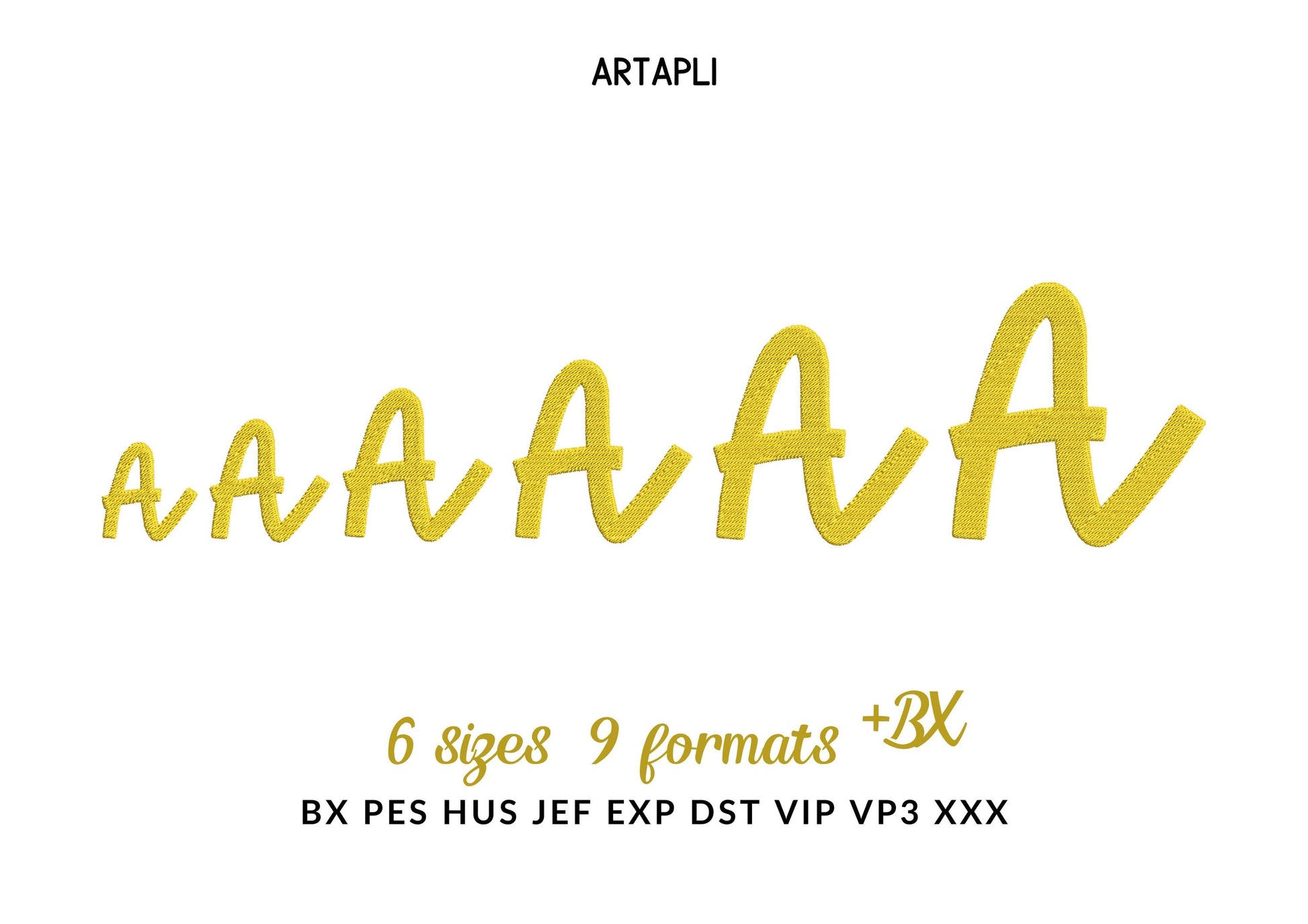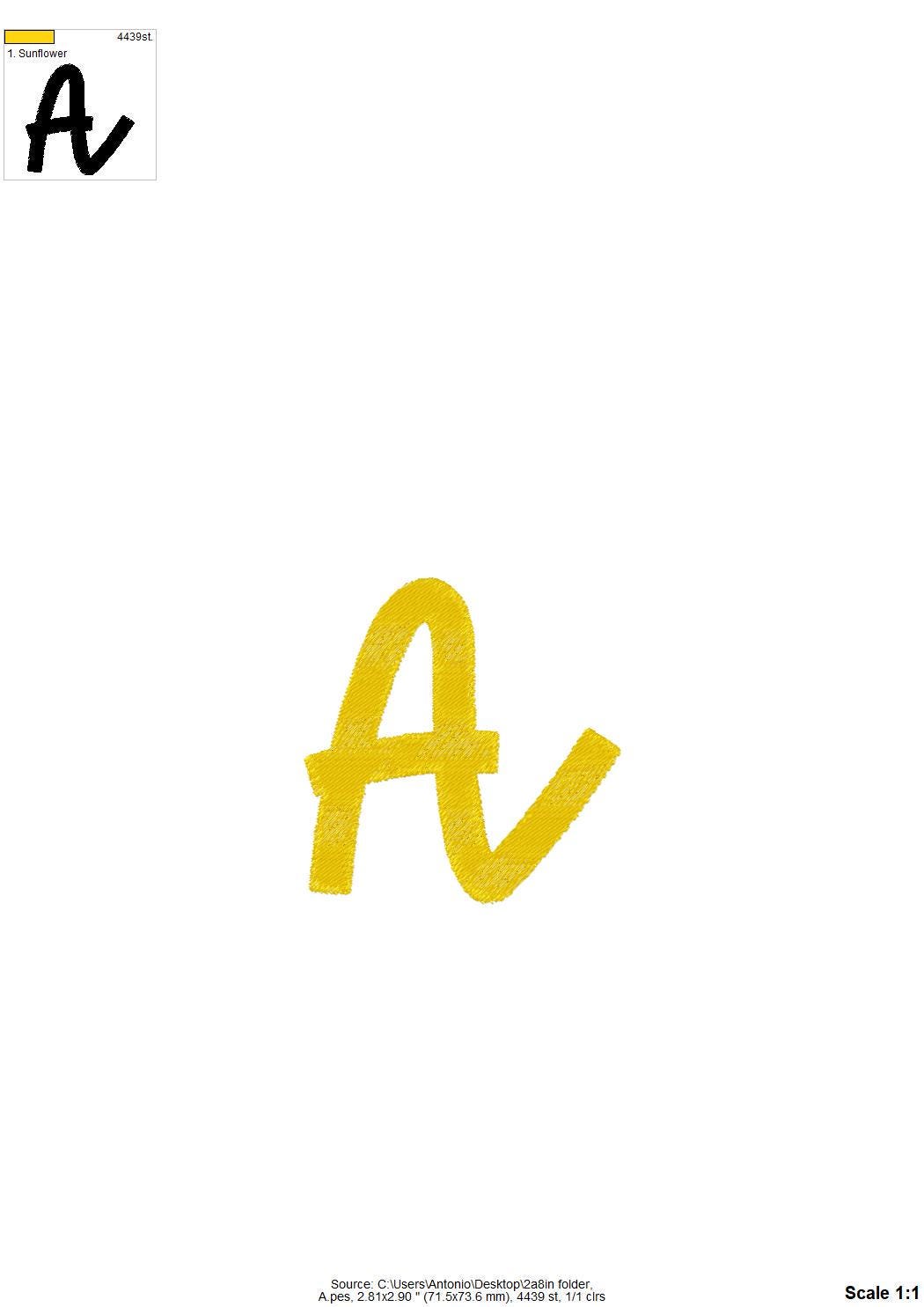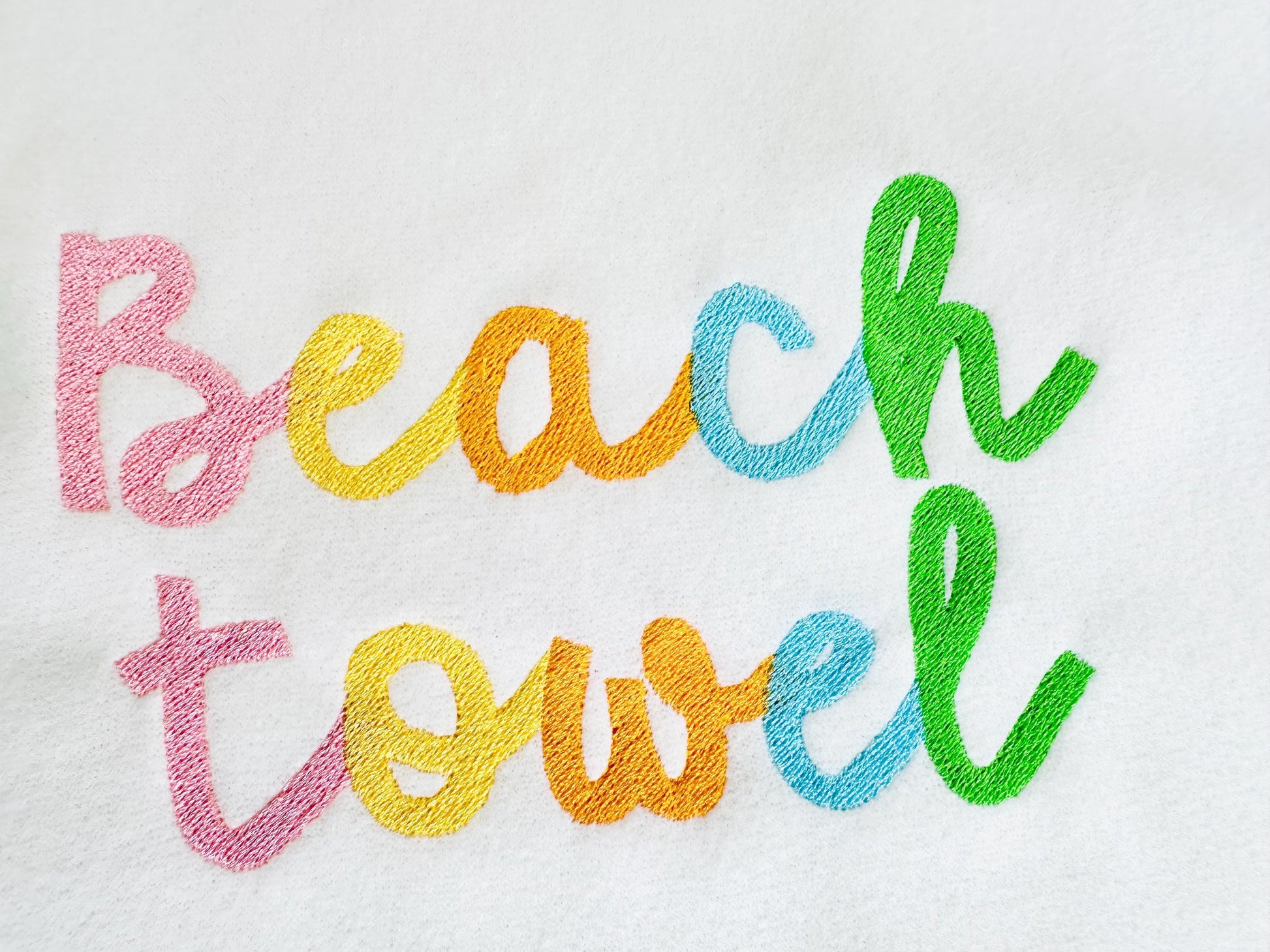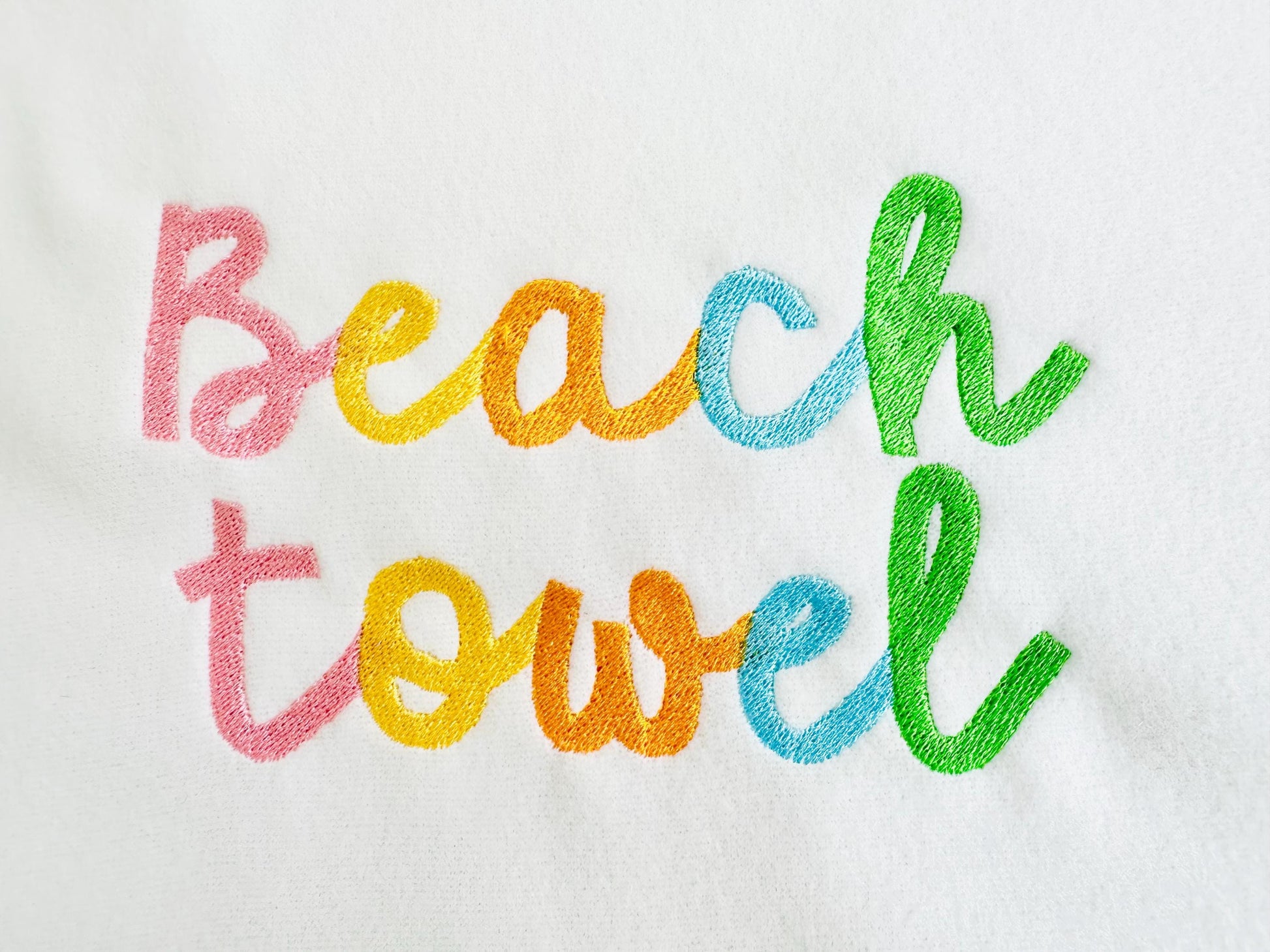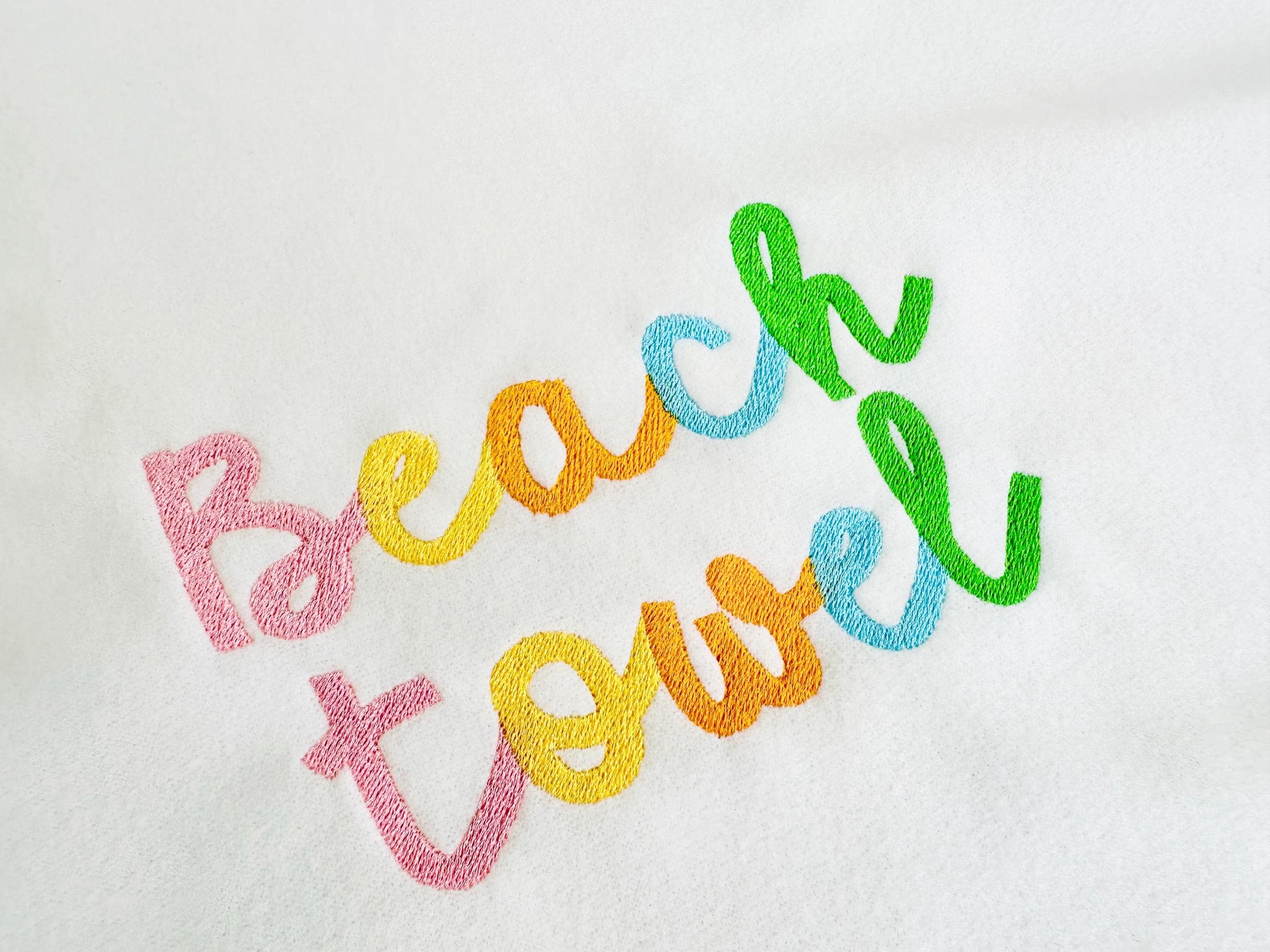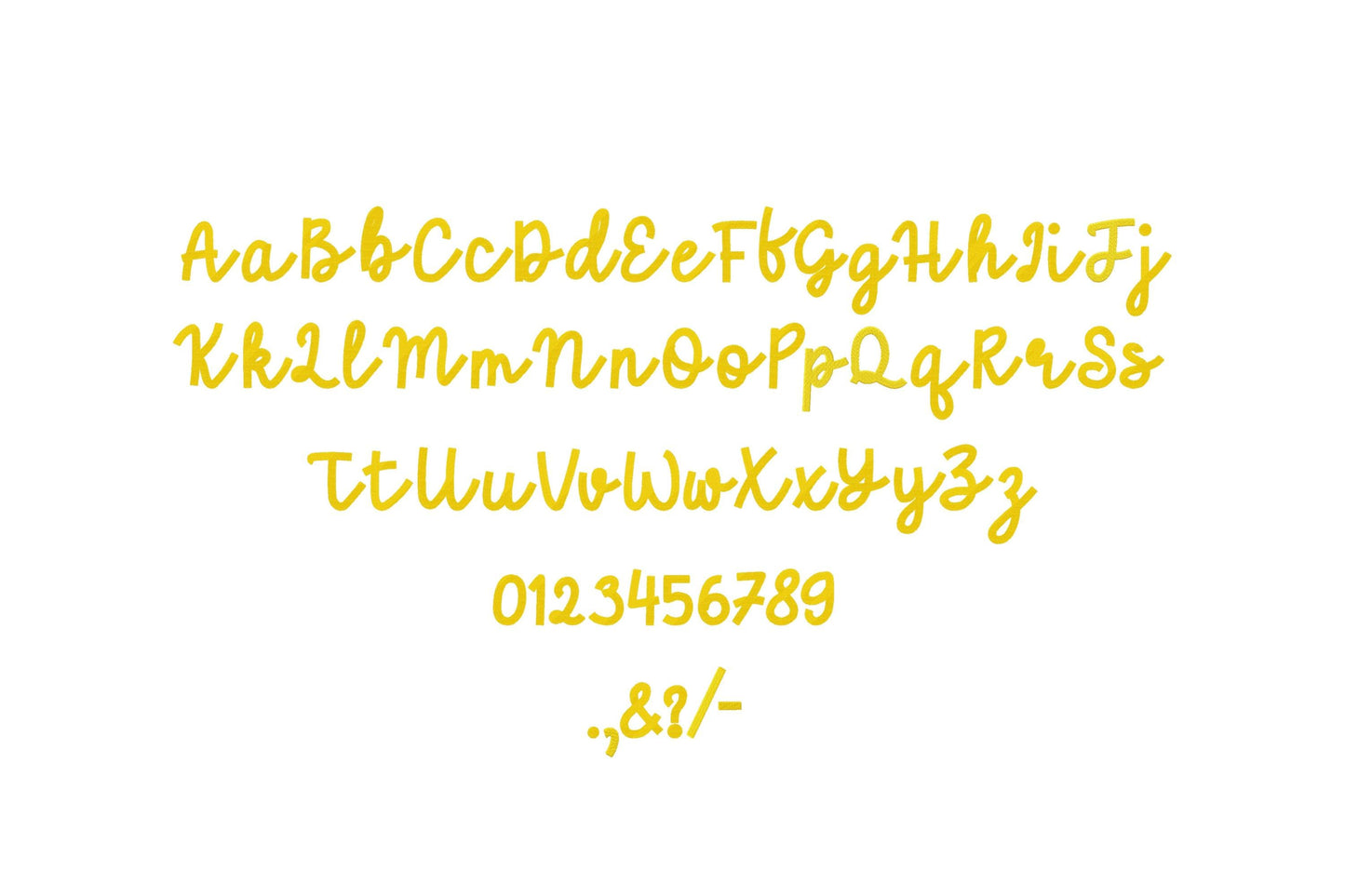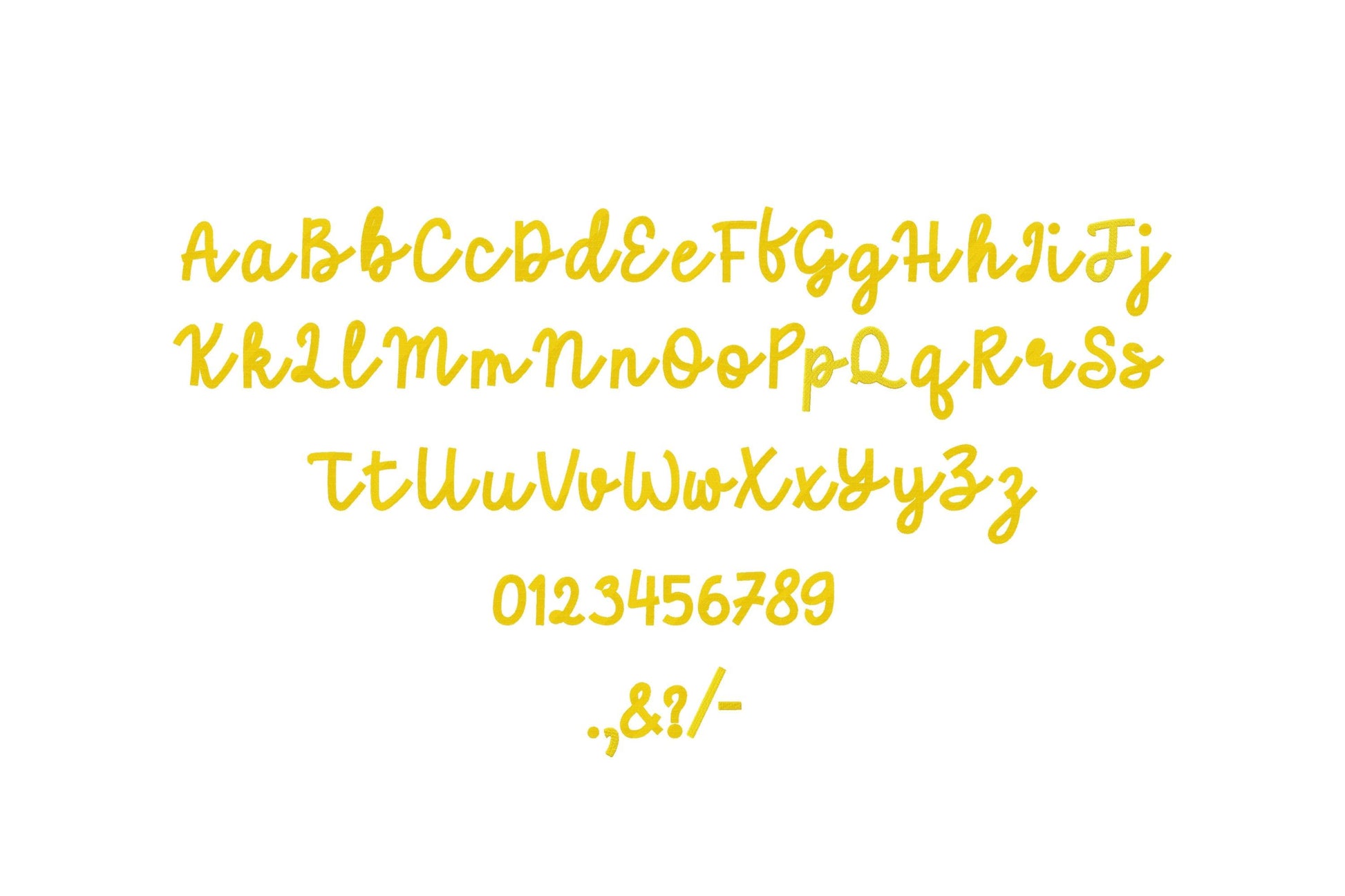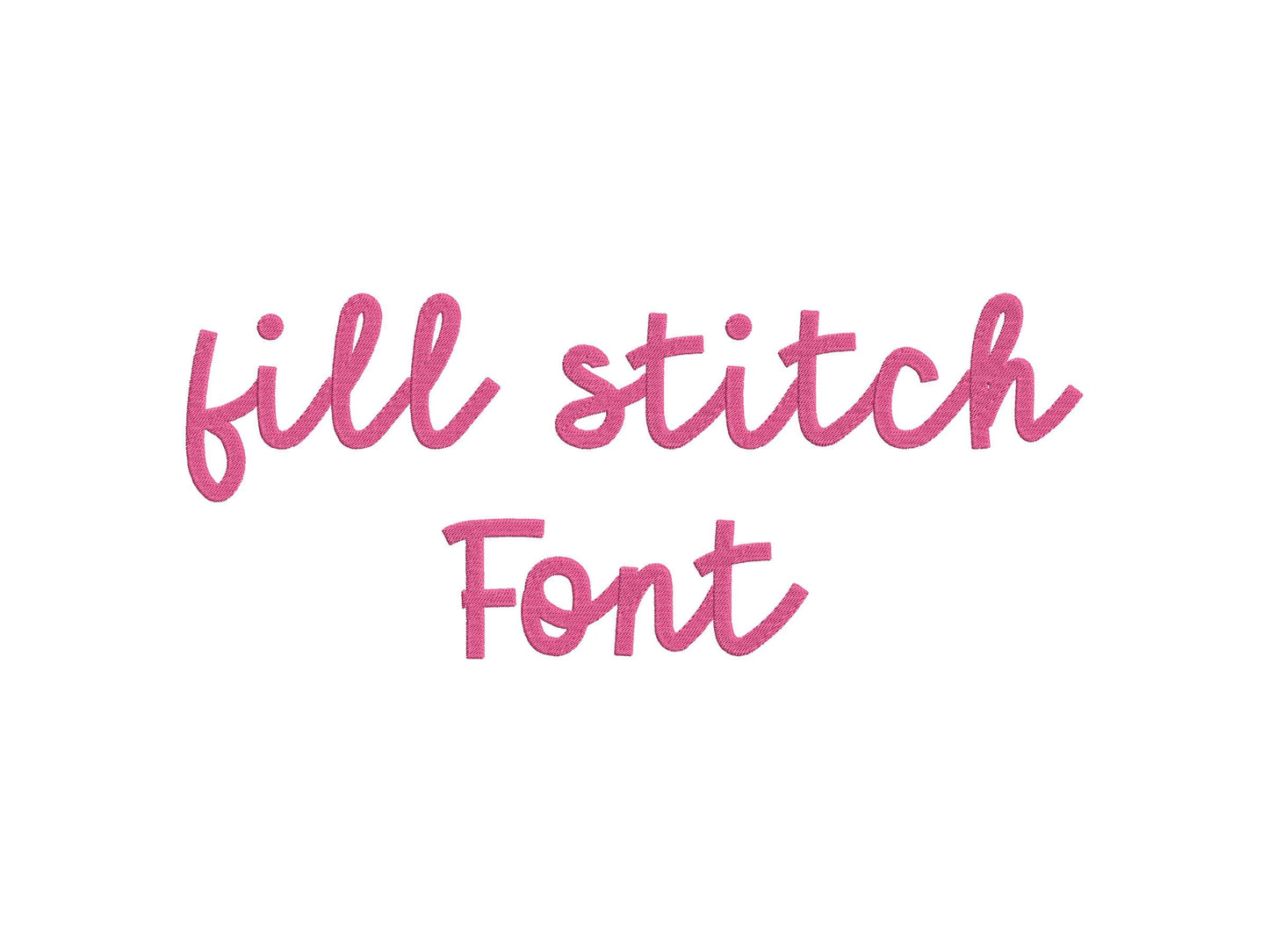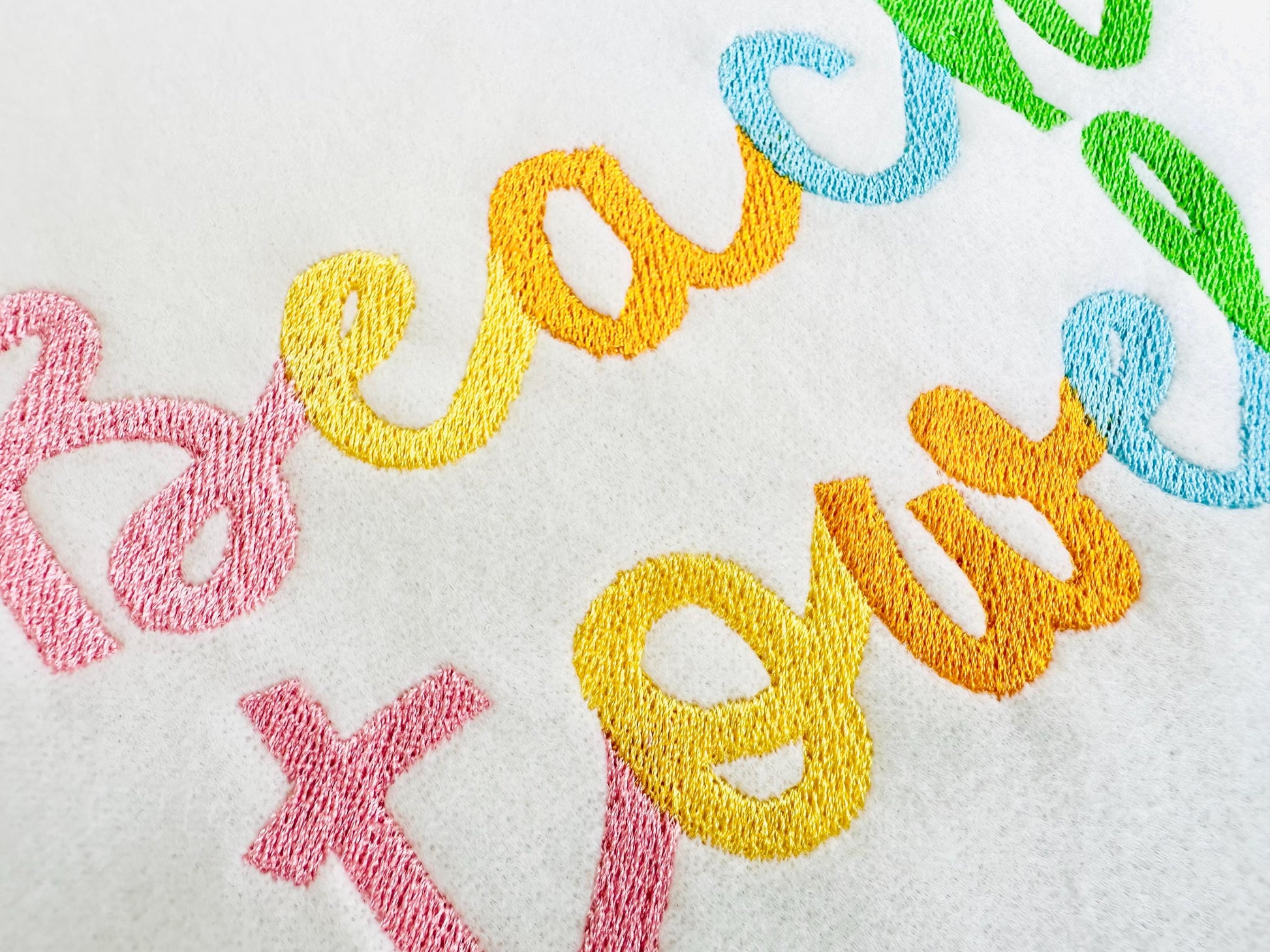
Or click to open the linkA bold handwritten script in fill stitch. Sweet for kids' and baby names, monograms, bibs and shirts.
Uppercase and lowercase letters, numbers 0 to 9 and punctuation. Six sizes: 1.3, 1.6, 2, 2.4, 2.8 and 3.5 inches.